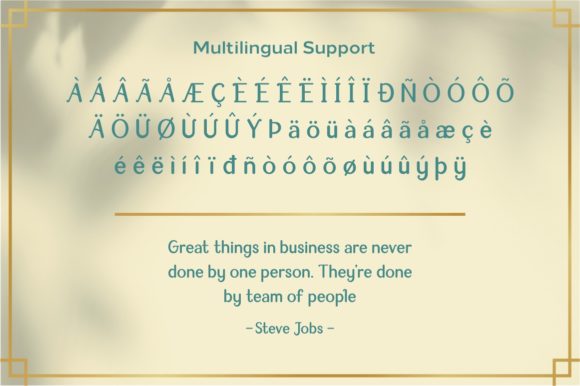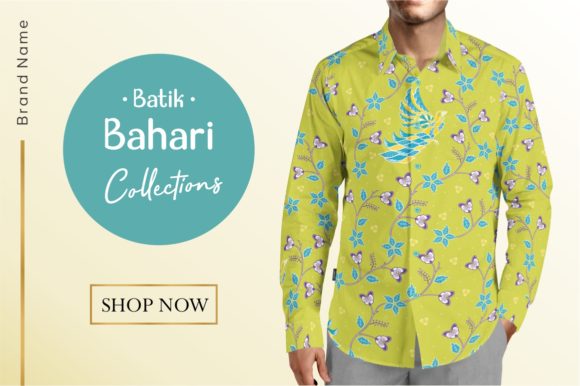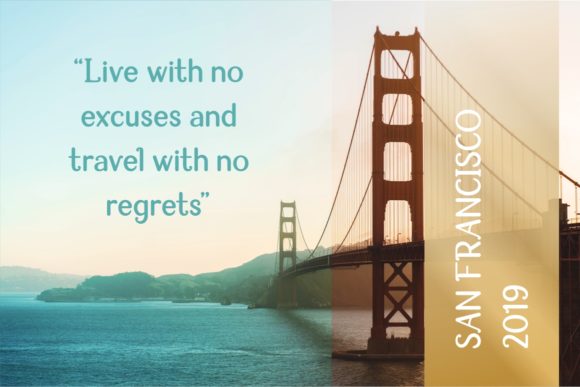
Getting Creative with the Royal Quest Font
Do you ever find yourself in the middle of a design project, struggling to find the perfect font to match your vision? I’m sure we’ve all been there. For me, it’s like searching for a missing puzzle piece – everything seems incomplete until I find that one special font that brings it all together.
That’s exactly what I experienced when I stumbled upon the Royal Quest Font. Its soft, serifs and elegant lines instantly captured my attention. As a designer, I know how valuable it is to have a reliable design resource like this at our disposal. With the Royal Quest Font, you can elevate your creative project and give it a touch of sophistication.
Key Features of Royal Quest Font
- Unique, hand-drawn style with intricate details, perfect for fantasy and adventure themes.
- Comes with a transparent background, allowing for easy customization and versatility.
- Large character set, including uppercase and lowercase letters, numbers, and punctuation marks.
- Perfect for use in video games, fantasy novels, and other creative projects that require a unique and regal font style.
Honest Review: Royal Quest Font
I recently came across the Royal Quest Font, and I must say, it’s a great addition to any design resource collection. As a designer, I’m always on the lookout for high-quality fonts to enhance my creative projects. And this one delivers.
- The font has a transparent background, making it easy to layer and customize in any design project.
- The font has a unique, elegant design that adds a touch of sophistication to any project.
- The font may not be suitable for all design projects, particularly those that require a more bold or playful font.
- The font may not be as customizable as some other fonts, which may limit its use in certain design scenarios.
Overall, I’m impressed with the Royal Quest Font. It’s a high-quality design resource that’s perfect for designers looking to add a touch of elegance to their creative projects. While it may have some limitations, it’s definitely worth considering for your next design project.
Tips for Getting the Most Out of Royal Quest Font
To get the most out of the Royal Quest Font, use it with a transparent background to create a clean and modern look. Experiment with different font sizes and styles to add depth and visual interest to your design.
The Royal Quest Font is ideal for use in creative projects such as graphic design, digital art, and typography. It’s also great for use in presentations and documents where a high-quality font is required.